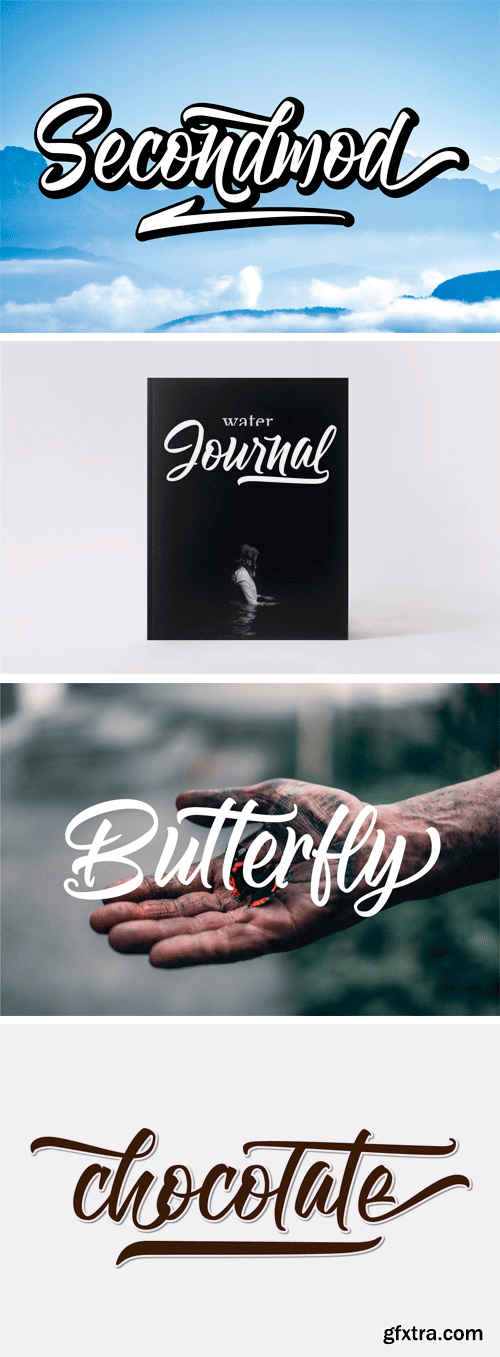
Fontbundles - Secondmod 145966
Secondmod is a new script font. This font is ideal for branding and decorate your any project. This fonts are perfect for wedding invitation or your blog. you can create a logo or beautiful frame for your home. Or just use for your small business, book covers, stationery, marketing, magazines and more. a full featured open type and multilingual support.